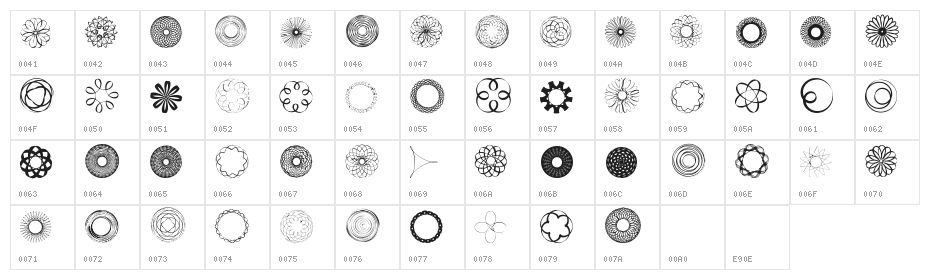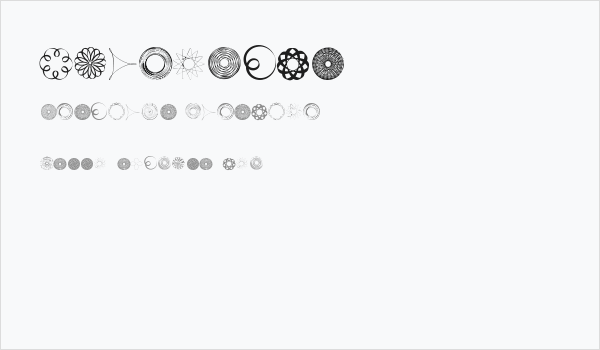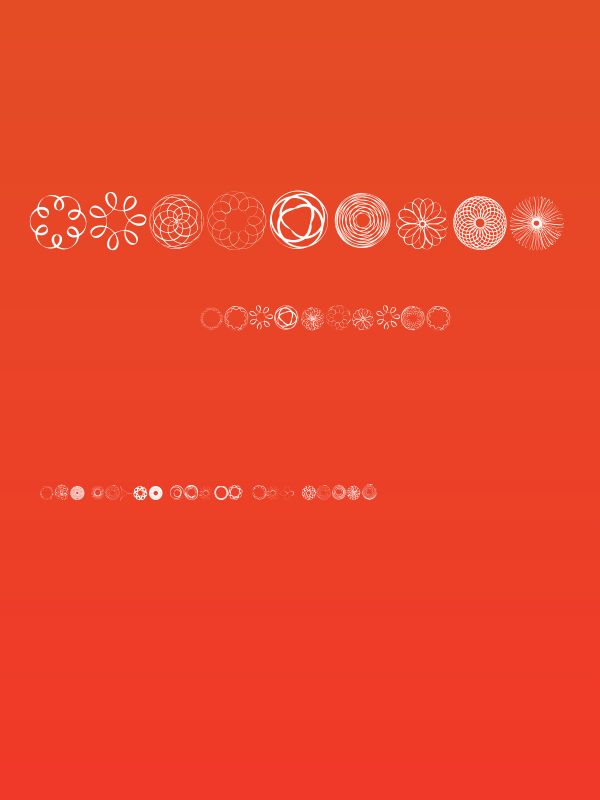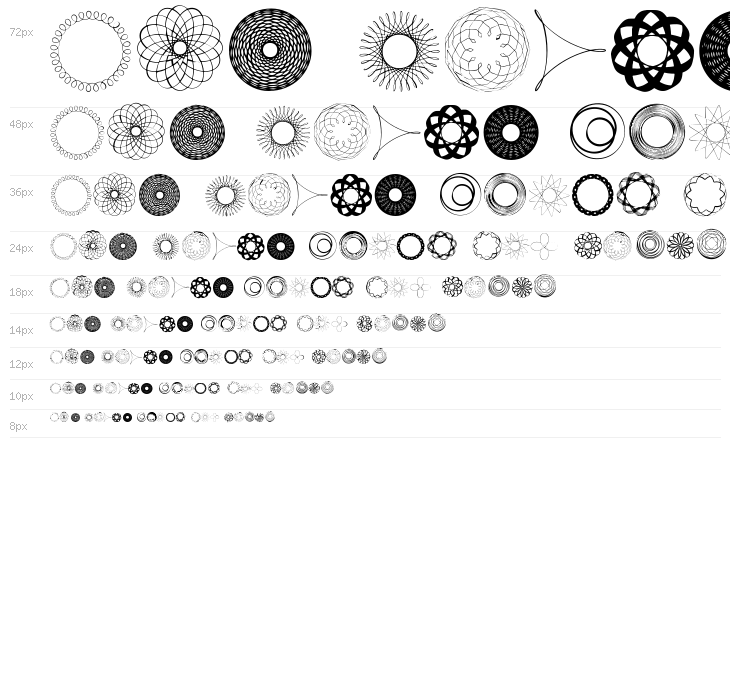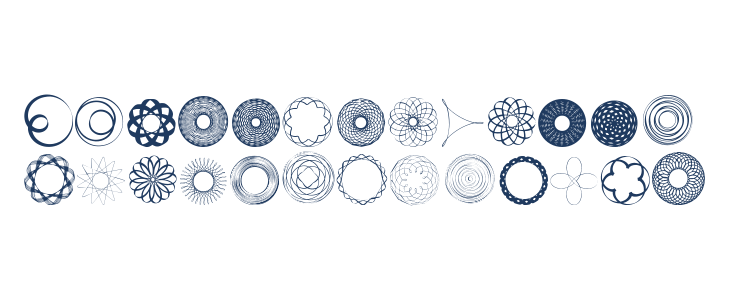
SpiroFace Font
SpiroFace Description
A decorative display set featuring intricate, circular spirograph-inspired glyphs with varying line weights and geometric complexity, each character rendered as a unique ornamental motif.
| Overall Style | Decorative, Geometric, Artistic |
| Use Case | Logos, Headlines, Decorative elements |
| Proposed Projects | Posters, album covers, branding, decorative initials, art projects, digital stickers. |